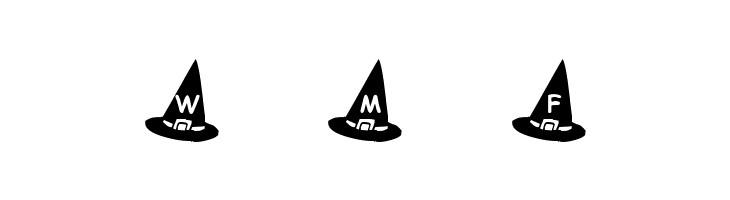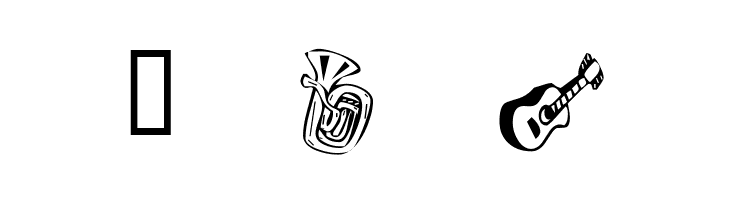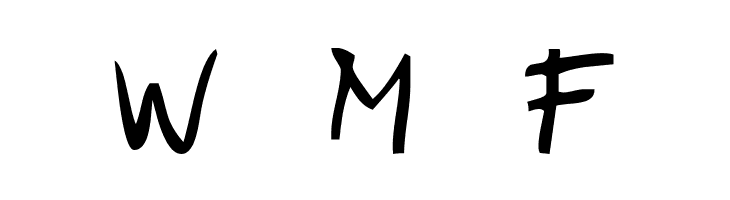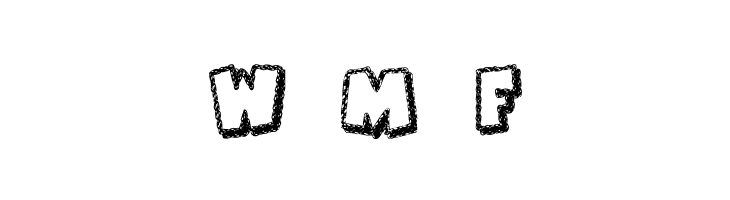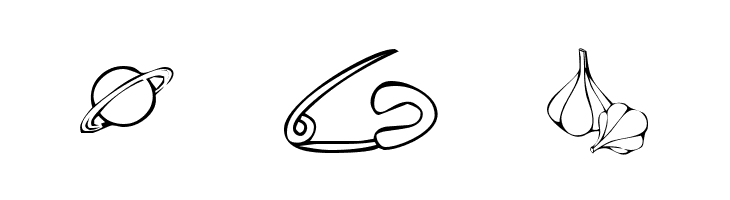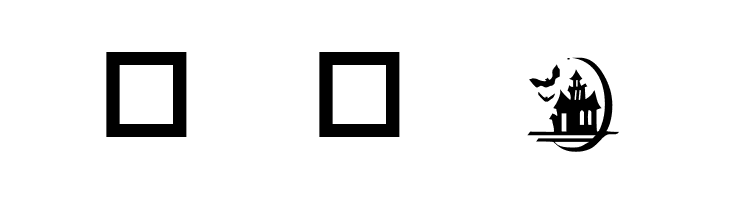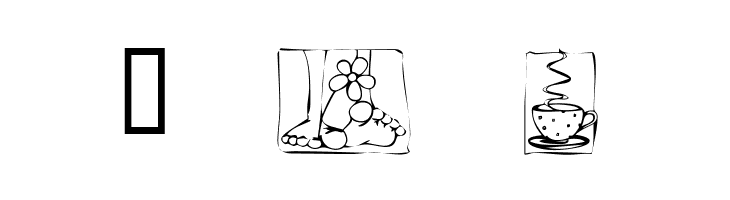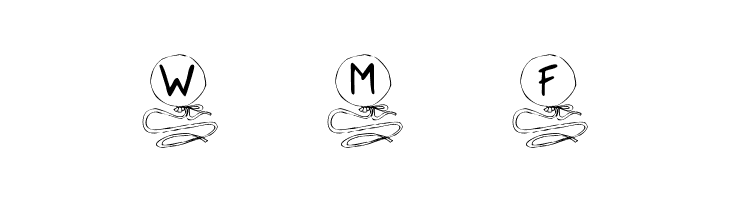
A playful font with characters inside witch's hats, ideal for magical themes.
A decorative font featuring playful musical instrument designs.
A dynamic, marker-style font with playful, hand-drawn characteristics.
A decorative font with letters styled as barbecue grills, perfect for thematic designs.
A whimsical set of bunny illustrations in various playful poses.
A playful, textured font with a frosted, hand-drawn appearance.
A decorative dingbat font with assorted hand-drawn illustrations.
A decorative font with holiday-themed illustrations in circular frames.
A decorative font with playful, hand-drawn illustrations within each character.
A playful font with letters inside balloon shapes, perfect for festive designs.